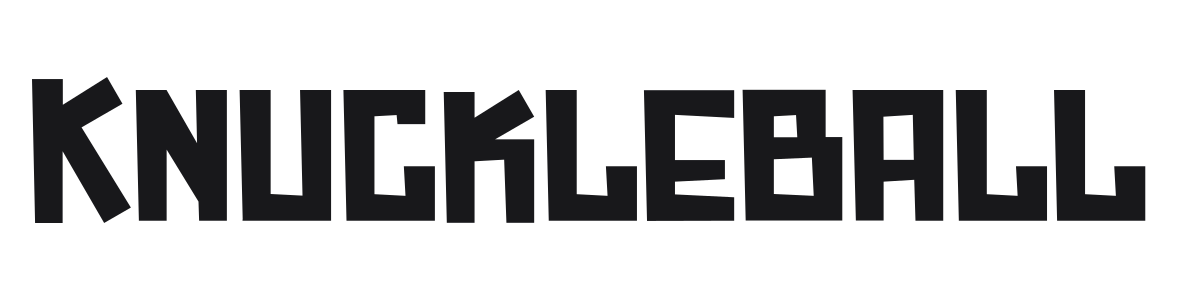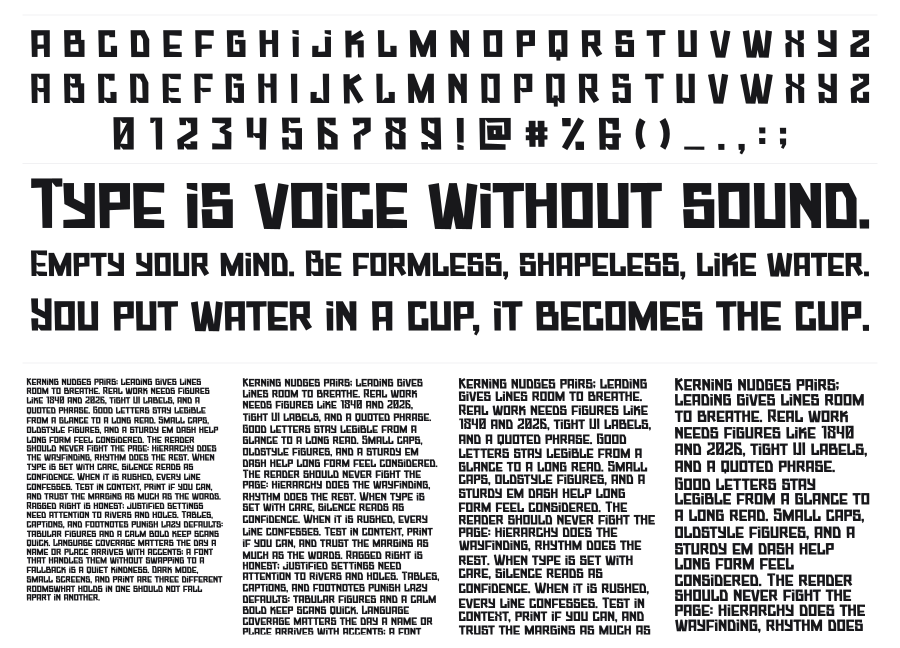
Knuckleball
Knuckleball is a heavy condensed display font built on a blocky, square skeleton with deliberate chipped cuts and fractures that give it a raw, battle-worn character. The damage feels controlled rather than chaotic, landing somewhere between a sports jersey stencil and street-art vandalism. It hits hard at large sizes on posters, team graphics, and streetwear branding.